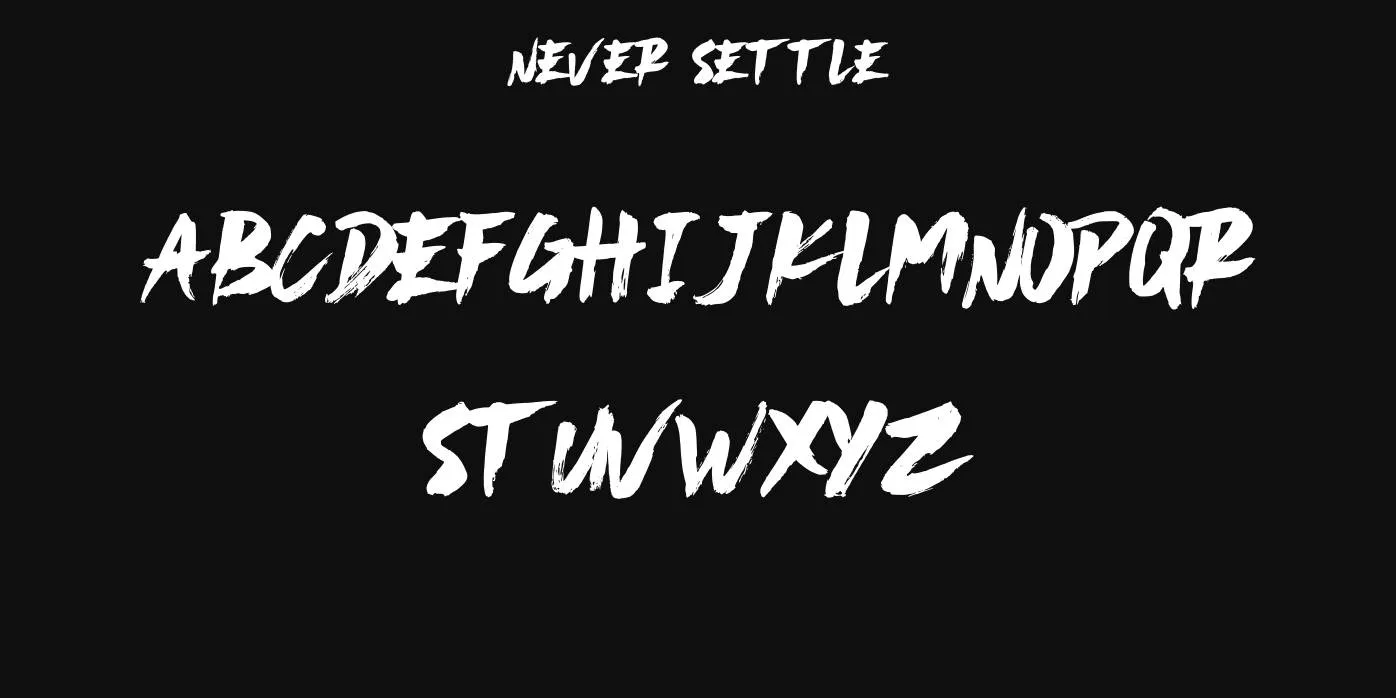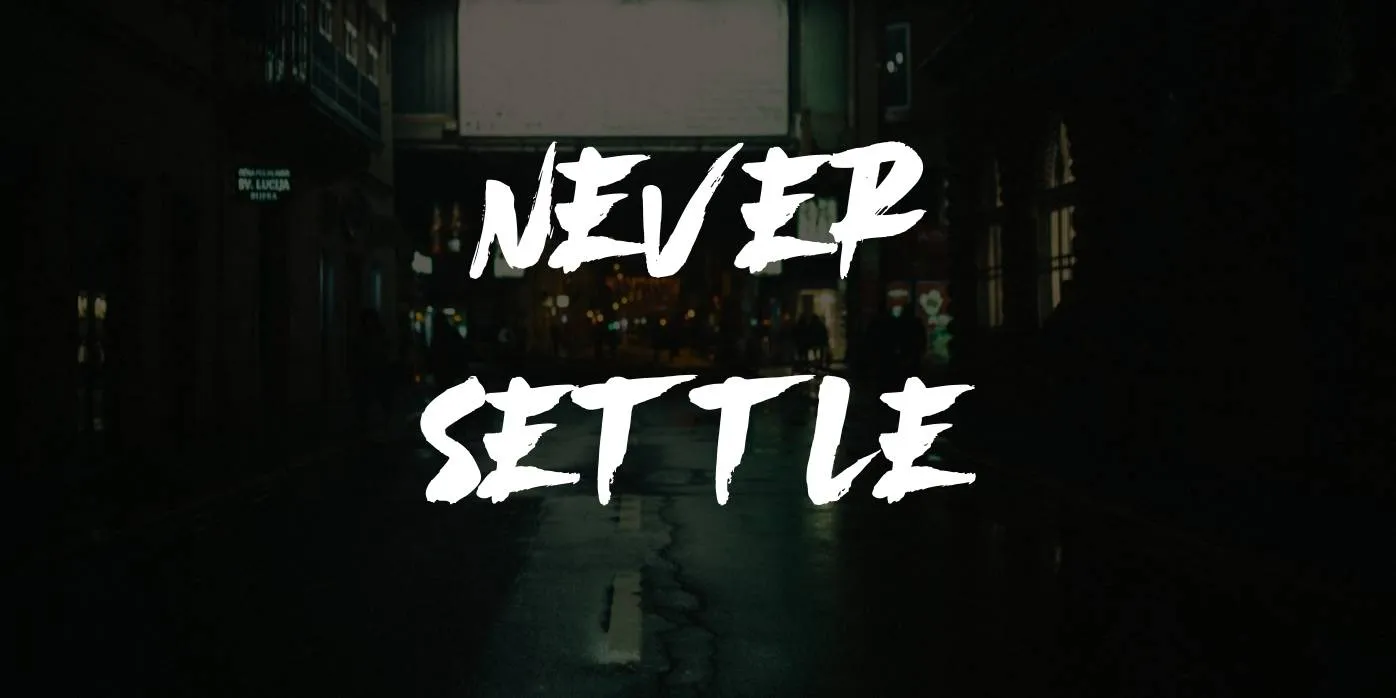
Never Settle Font
Letteratom manufactured Never Settle Font. This texture is a brush typeface. So, it has been effectively utilized at Halloween parties. The pairing of single fighter font with this typeface has extraordinary results.
Both can give beautiful designs. When we talk about the characters of this typeface, we have to know that its characters are horror-type. This font can be used for many purposes including branding, logos, social media posts, and many other purposes. An online generator tool will lessen your efforts.